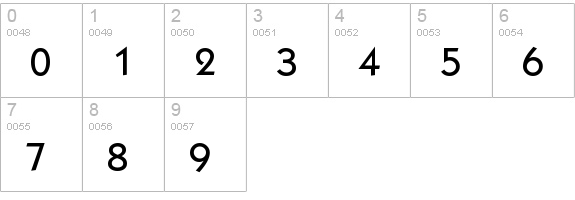
Kabob Font Details
Introducing Kabob Font, a truly captivating and versatile typeface that is bound to add a touch of elegance and modernity to any design project. With its seamless blend of clean lines and stylish curves, Kabob Font effortlessly captures attention and creates a lasting impression. This distinctive font boasts a unique balance between sophistication and playfulness, making it the perfect choice for a wide range of applications. Whether you're designing a logo, crafting a poster, or creating eye-catching social media graphics, Kabob Font is here to elevate your creative endeavors to new heights. But what sets Kabob Font apart from the rest? Well, the answer lies in its exceptional versatility. This font seamlessly adapts to various design styles, from minimalistic and contemporary to bold and expressive. Its versatility allows you to experiment and explore different typographic solutions, ensuring that your designs truly stand out from the crowd. And the best part? Kabob Font is absolutely free! That's right, you can freely download this remarkable typeface at FontsMarket.com. We believe that great design should be accessible to all, and that's why we've made Kabob Font available to everyone, without any cost or restrictions. So go ahead, unleash your creativity and bring your design visions to life with the help of Kabob Font. With its extensive character set, including uppercase and lowercase letters, numerals, punctuation marks, and special glyphs, Kabob Font offers endless possibilities for typographic expression. The attention to detail in each letterform is evident, showcasing the skill and craftsmanship that went into creating this exceptional font. So whether you're a professional designer, a student, or simply someone looking to add a touch of elegance to your personal projects, Kabob Font is the ideal choice. Download it for free today at FontsMarket.com and unlock a world of typographic possibilities. Elevate your designs, captivate your audience, and make a lasting impression with Kabob Font.